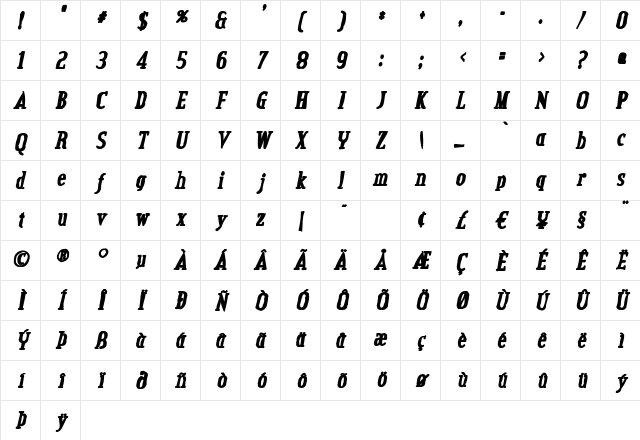
Credit Valley Ink is a composed and adaptable typeface that performs quietly and consistently across a wide range of design contexts. The slanted form adds forward momentum and visual energy.
Pro Tip: Use Credit Valley Ink for emphasis, pull quotes, and subheadings where its slanted energy can add rhythm to the layout.